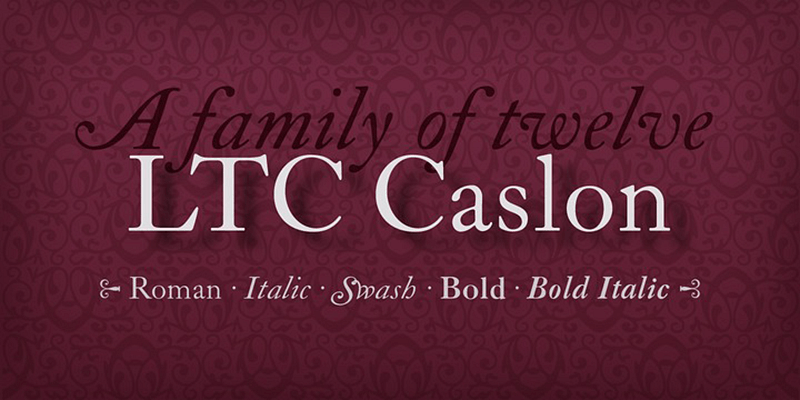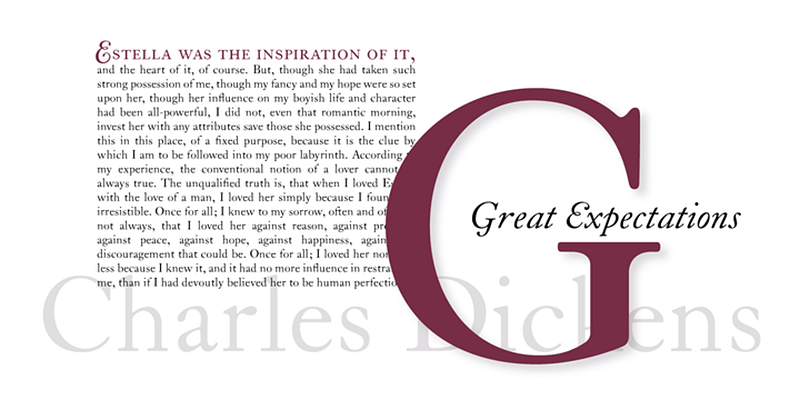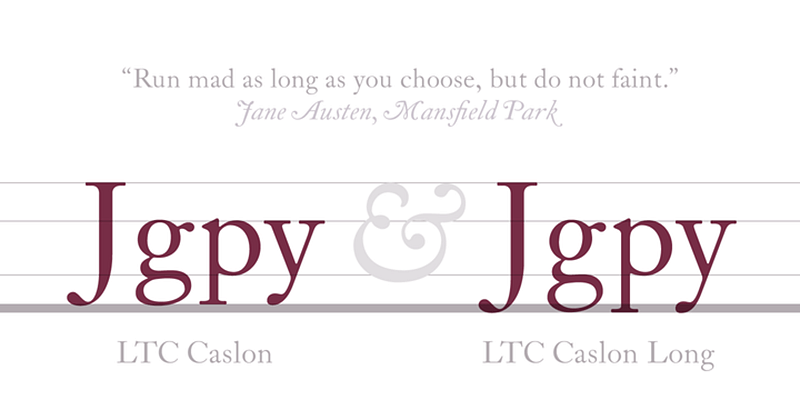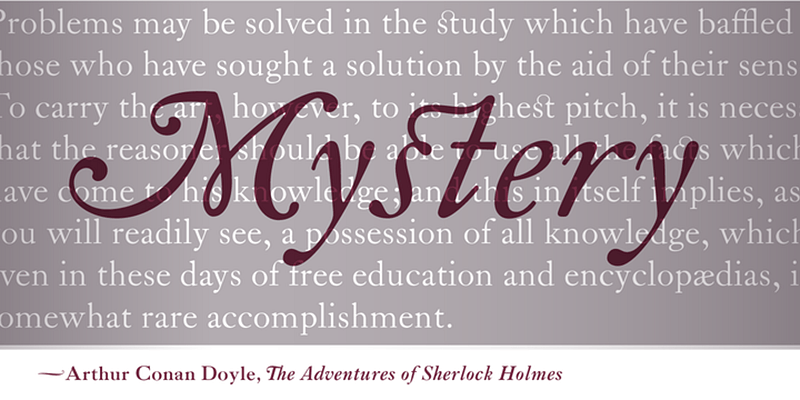
LTC Caslon is redrawn based on the Wm. Caslon 14-pt font for hand composition, to be closer to the original Caslon. Both the original 1915, and this version are offered with long and short descenders.
Lanston Type Co. (LTC) has roots back to the Lanston Monotype Company of 1887, founded by Tolbert Lanston, inventor of the Monotype casting machine. After parting ways with its English counterpart, LTC struggled and was sold several times to American Type Founders, Hartzel Machine Works, Mackenzie & Harris, and Gerald Giampa. P22 Type Foundry acquired it in 2004 and is now home to classic designs of Frederic W. Goudy and Sol Hess and newer contemporary masters Giampa, Jim Rimmer, and Dave Farey.